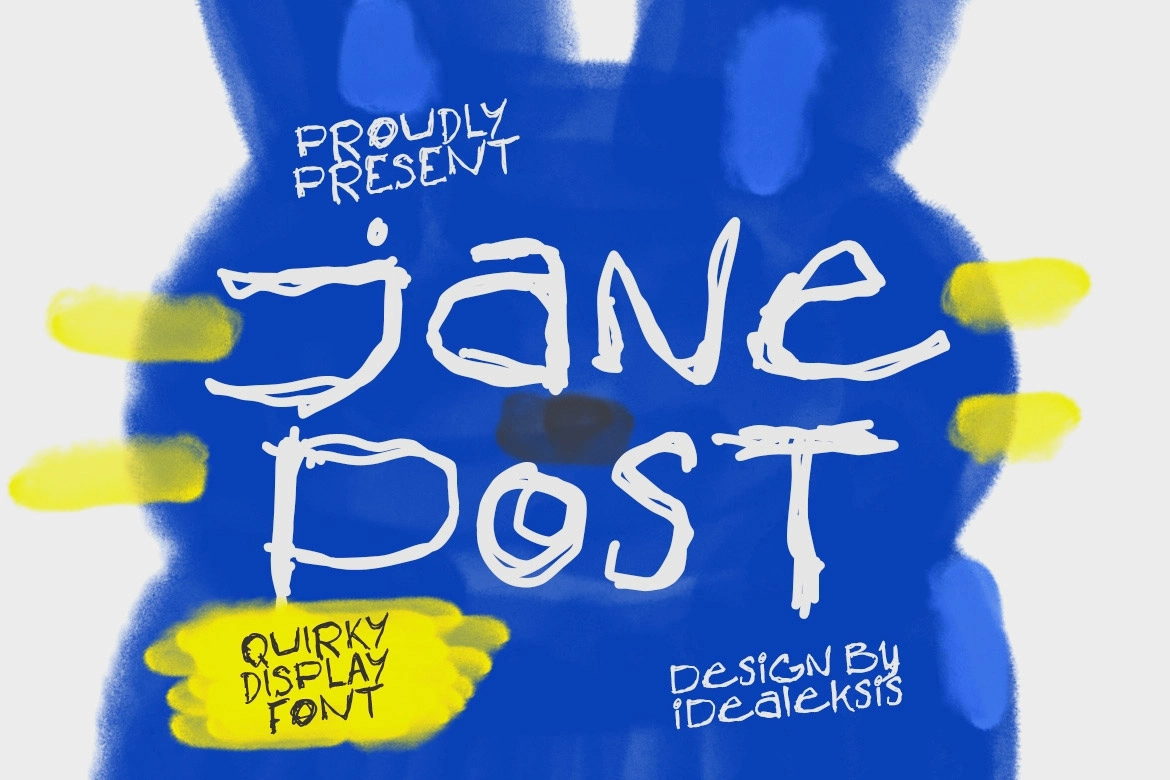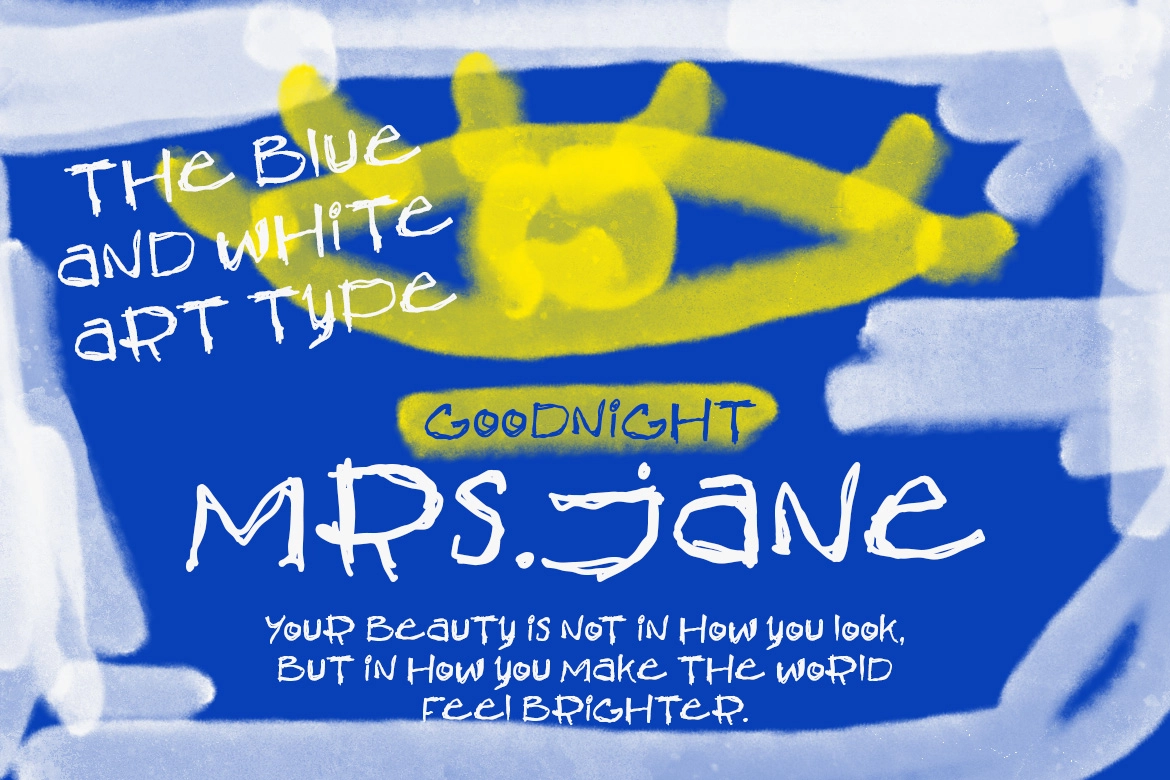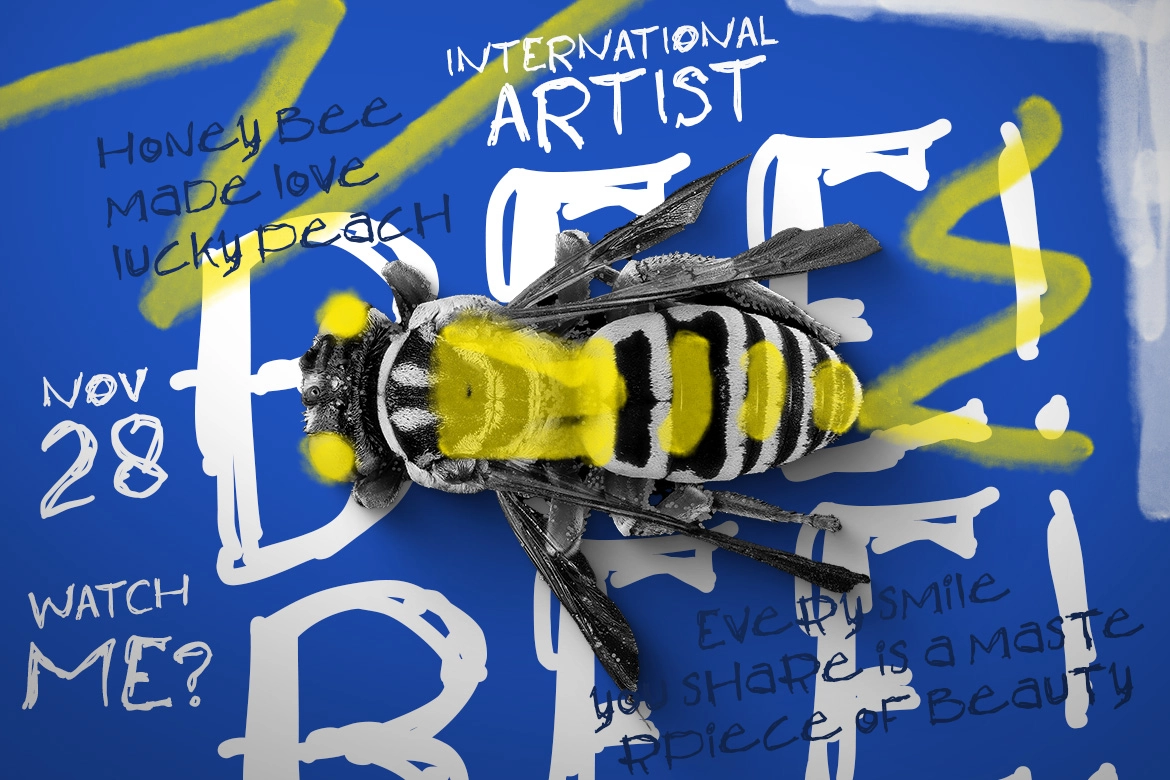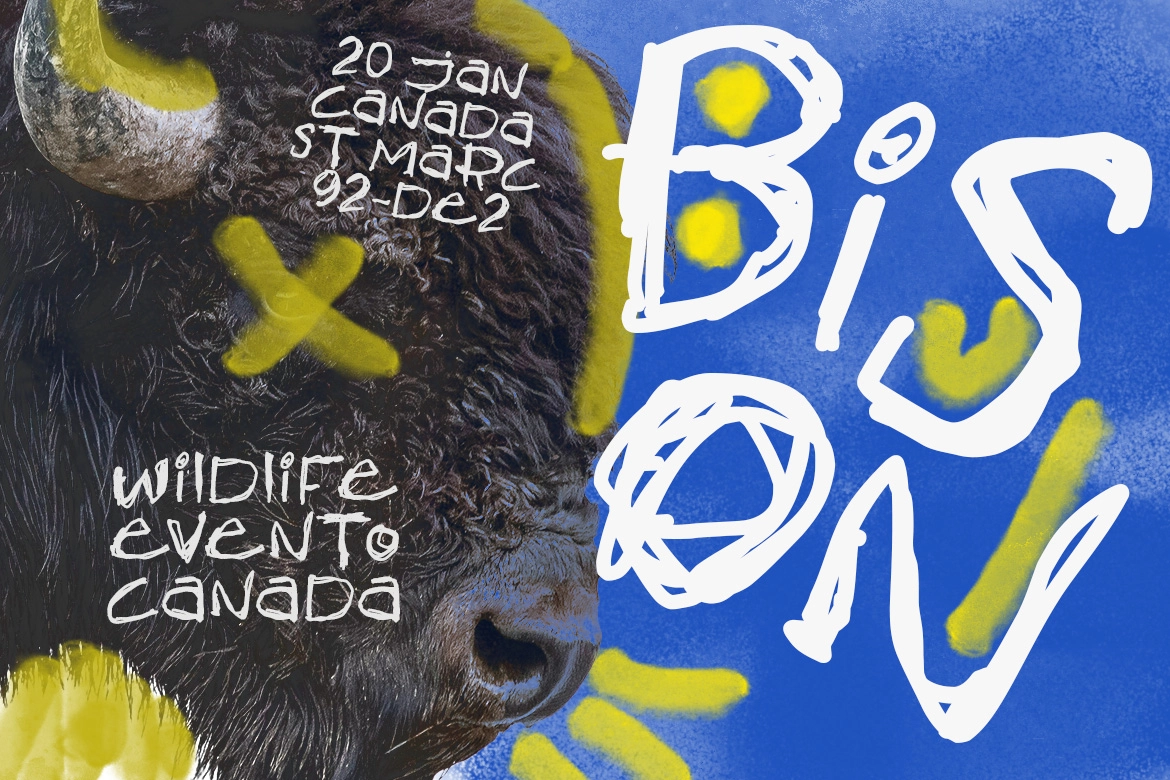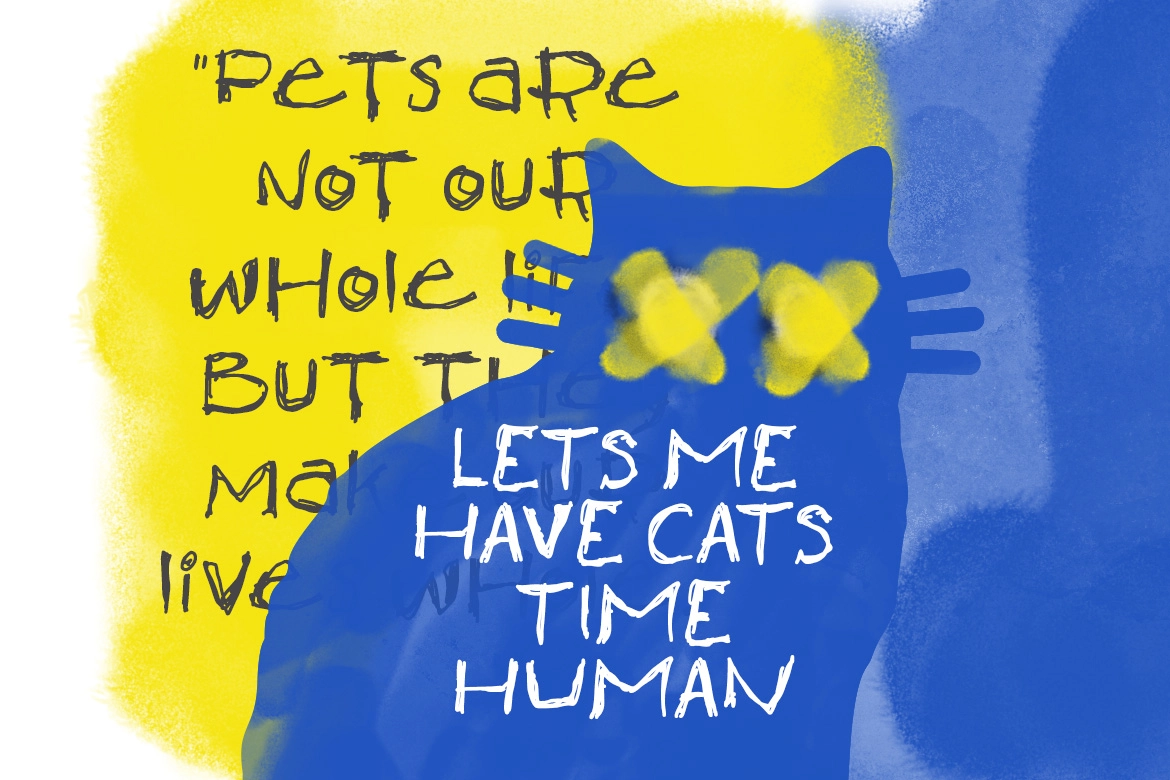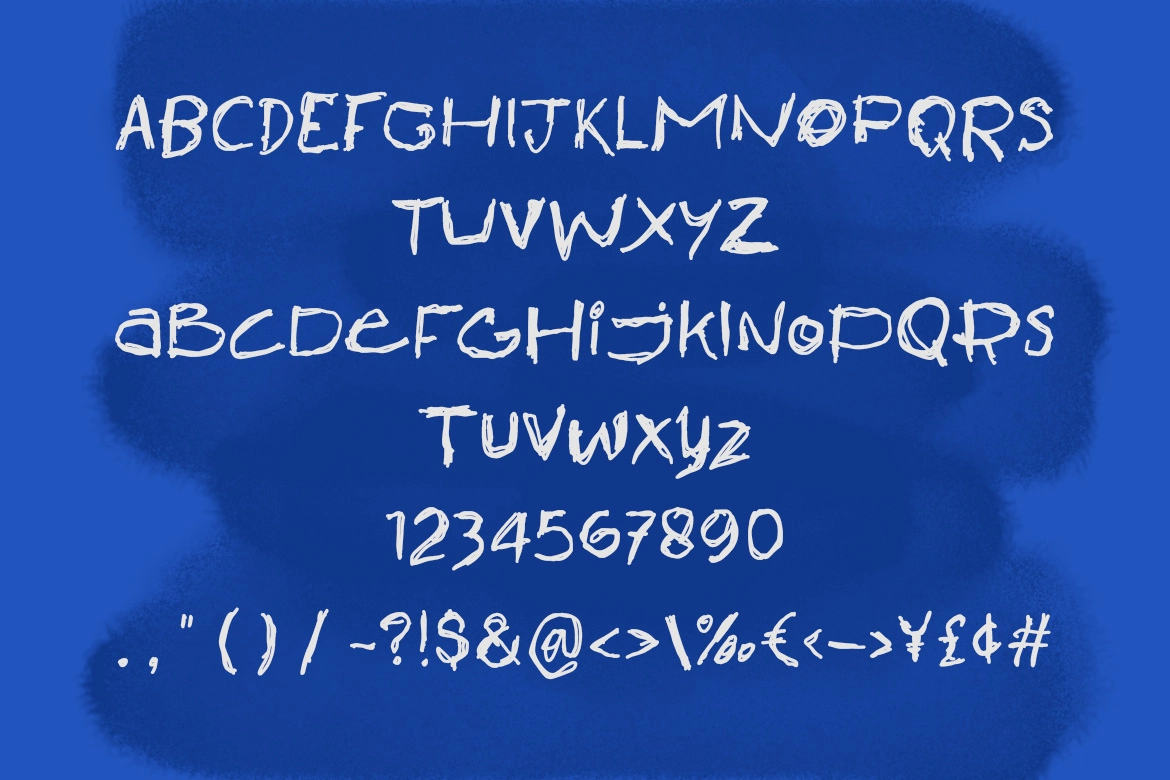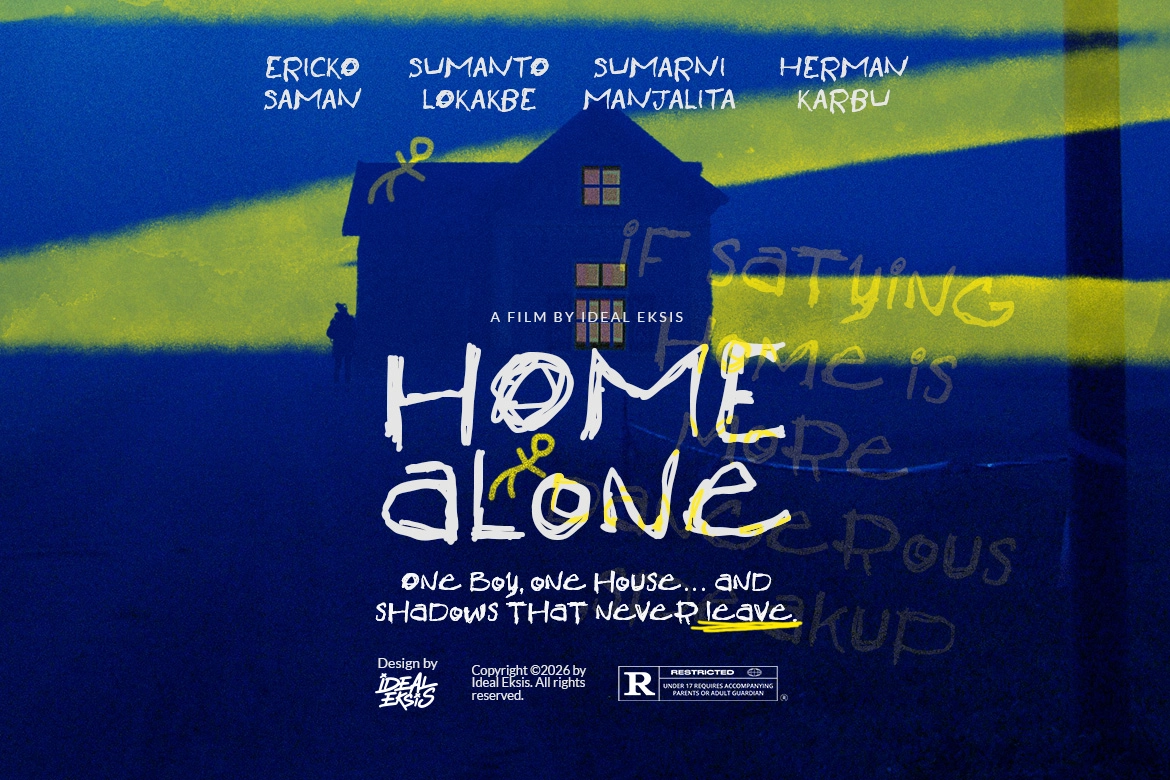
Jane Post - Handwritten Scribble Font
Jane Post - Handwritten Scribble Font is an expressive display typeface that captures the raw energy of hand-drawn lettering. Built with irregular strokes and a deliberately imperfect structure, it brings an authentic sketch-like feel that feels spontaneous, personal, and full of character.
Each letter features uneven weight and a loose baseline, creating a natural rhythm that mimics real handwriting. The rough, slightly shaky lines give the font a dynamic and artistic look, making it perfect for designs that aim to feel human, emotional, and unpolished in a creative way.
Ideal for posters, editorial layouts, creative branding, and artistic compositions, Jane Post adds a distinctive handcrafted touch that stands out in modern visual projects. It’s especially effective for concepts that embrace individuality, storytelling, and expressive typography.
- Sketch Handwritten Style
- Organic, Irregular Letterforms